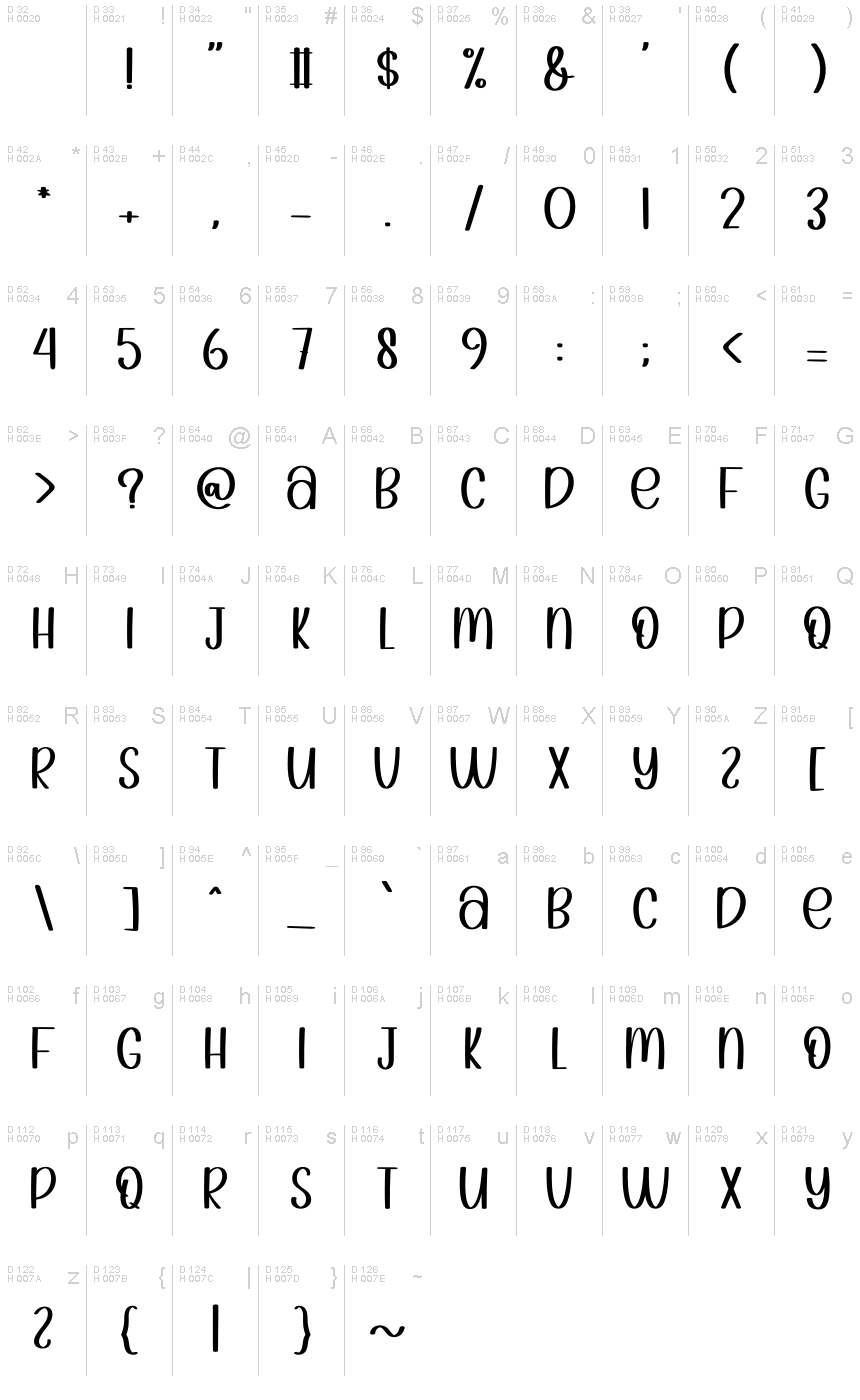
January
January, designed by PiPi Creative, is a handwritten font that captures the essence of personal touch within its semi-light and condensed style. With its elegant, flowing lines and a distinctively modern flair, January exudes charm and readability that's as fresh as the first month of the year.
This font's aesthetic appeal lies in its balanced blend of casual elegance and structured formality, making it an excellent choice for designers seeking to infuse their projects with warmth and personality. Its handwriting-inspired strokes offer a sense of intimacy while maintaining a clean appearance that ensures legibility across various applications.
Ideal for branding projects, invitations, or editorial designs where character is key; January can deliver messages with an authentic voice. The unique characteristics of this font lie in its ability to connect with the audience on a personal level while still maintaining professionalism—perfect for businesses aiming to stand out with a signature look.